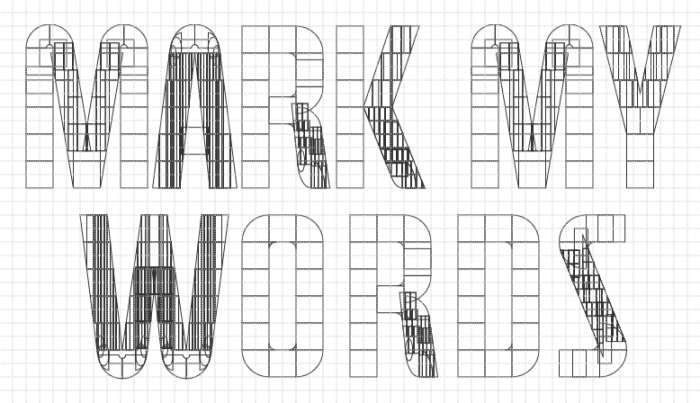
Simply amazing, so clean and balanced. Noting short of top notch. Cool to see you drop an outline view of the work as well.
Very nice… This would've been more difficult at 1x1 filters…
Congratulations! FontStruct Staff have deemed your FontStruction worthy of special mention. “Fevriera” is now a Top Pick.
that must've taken a long time
definitely love it!
Astonishing work here! Congrats on the well deserved TP!